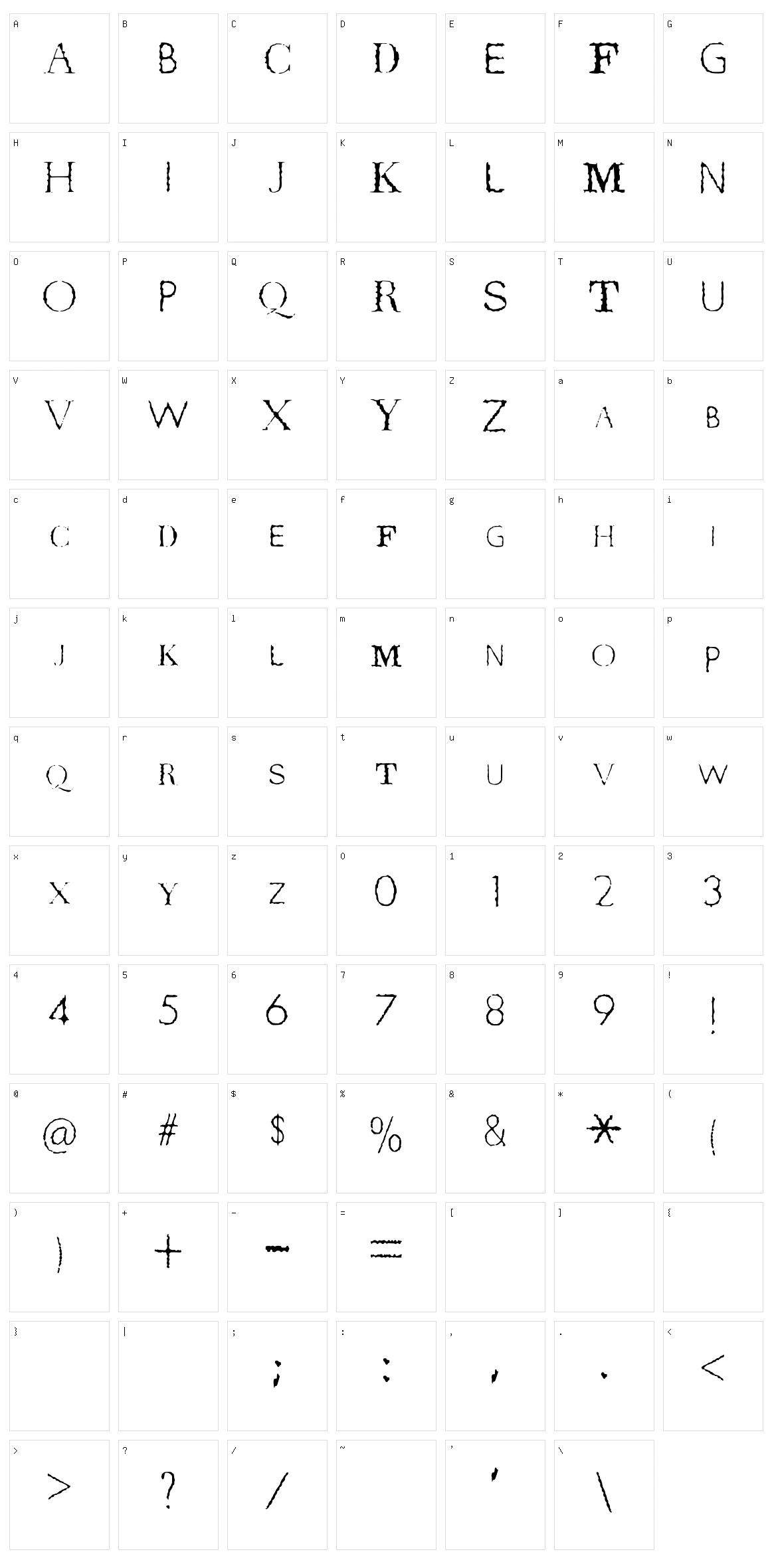
The free font Terror Byte True is carefully designed by Walter McKnight, showcasing a thoughtful balance of creativity and usability and falls under the Distorted font style. When you download the ZIP file, it contains only 22.2 KB of font files, making it lightweight and quick to download. Please review the license details below to understand permitted usage and distribution rights. If license information is not available, we recommend using this font for personal projects only or contacting the author directly for commercial usage permissions.